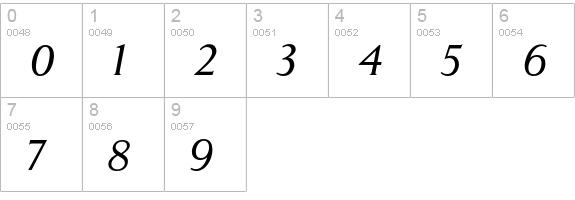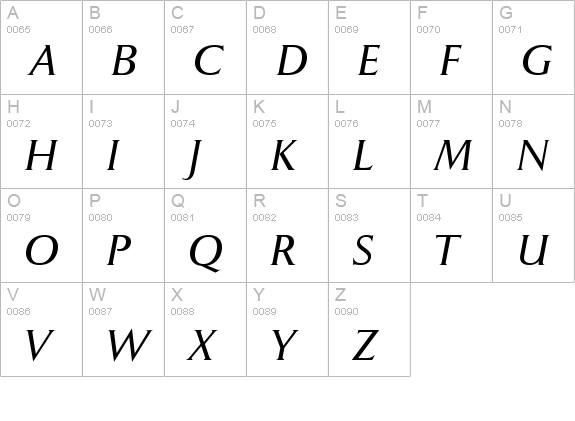
Pompei Std Light Italic Font Details
Pompei Std Light Italic is a refined, elegant, italic variant in the Pompei typeface family \xE2\x80\x94 well suited to elegant body text, refined sub-headings, and luxury branding.
Pompei Std Light Italic font exudes elegance and sophistication with its delicate and graceful letterforms. The light italic style adds a touch of refinement to any design, making it perfect for projects that require a touch of sophistication. The flowing curves and subtle slant of the italics create a sense of movement and fluidity, adding a dynamic touch to your text. What's even better is that Pompei Std Light Italic font is available for free download at FontsMarket.com. This means you can easily access this beautiful typeface without any cost, making it a fantastic choice for designers looking for a high-quality font that won't break the bank. Embrace the beauty and versatility of Pompei Std Light Italic font in your designs and elevate your projects with its timeless charm.